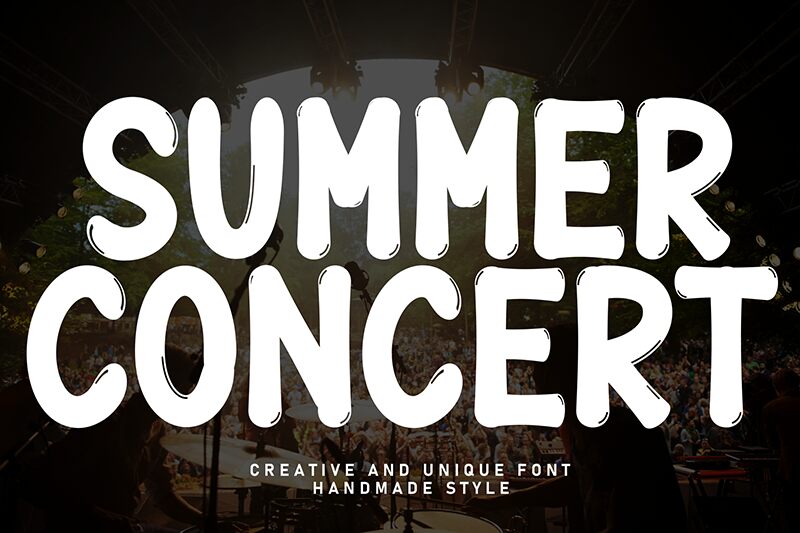
Summer Concert
Summer Concert font by Scratchones is a retro vibe display font suited for all your fun projects. Its attributes include a rounded edge, bold presence, handwritten look, and casual style. By choosing this free display font, users are getting a design tool that will fare very well in all modern branding tasks for printable and non-printable items.